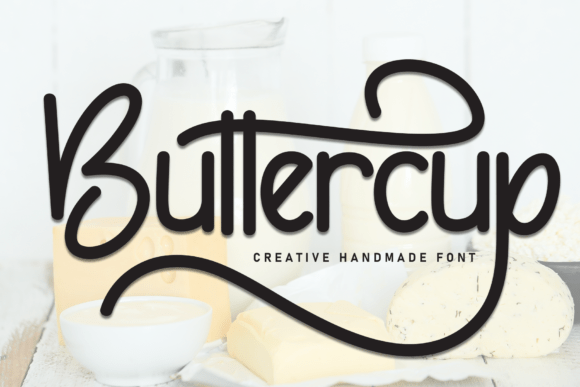
The Buttercup Font: A Delightful Addition to Your Design Arsenal
Ah, the elusive perfect font. You know, that one magical typeface that makes your design project go from meh to mesmerizing. I recall a particularly frustrating design session where I was working on a wedding invitation project, and my client specifically asked for a font that exuded warmth, playfulness, and a dash of whimsy. As I scrolled through my font library, I stumbled upon the charming Buttercup Font, and it was love at first sight! ✨
So, what makes Buttercup Font so special? Let’s dive into the good stuff:
- ✅ Playful and Personable: This font has a delightful, handwritten quality that instantly adds a touch of warmth and personality to any design.
- ✨ Versatile: Whether you’re creating wedding invitations, greeting cards, or social media graphics, Buttercup Font adapts effortlessly to various design contexts.
- ✅ Easy to Read: Despite its playful nature, this font remains surprisingly legible, even at smaller sizes.
Now, no font is perfect, and Buttercup Font has a few minor quirks:
- ⚠️ Limited Formality: As a display font, Buttercup Font might not be the best choice for more formal or corporate designs.
- 🤔 Occasional Kerning Issues: As with any font, you might encounter some kerning issues, especially when using all-caps or mixing with other fonts.
- Experiment with OpenType features, such as glyphs and stylistic alternates, to add more visual interest.
The Story Behind Buttercup Font
Buttercup Font was designed with one goal in mind: to create a typeface that would spread joy and whimsy through design. Its creator, a talented font designer, drew inspiration from classic children’s books, floral patterns, and vintage stationery. The result is a font that’s equal parts playful, charming, and delightful.
- Q: Is Buttercup Font suitable for body text?
- A: While Buttercup Font is primarily designed as a display font, it can be used for short blocks of body text. However, for longer texts, a more legible font might be a better choice.